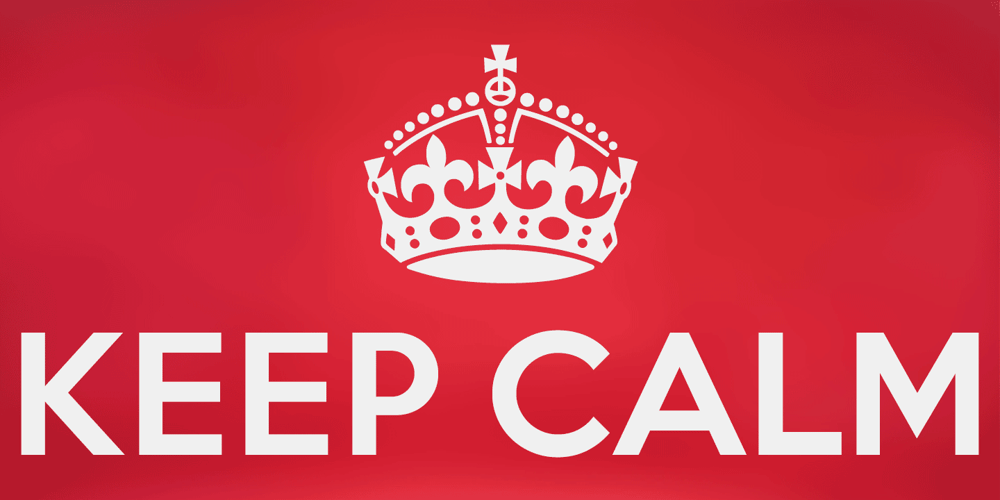
Keep Calm Font Family was designed by Keith Bates and published by K-Type. Keep Calm contains 8 styles and family package options. Keep Calm is a family of fonts developed from the now famous World War 2 poster that was designed in 1939 but never issued, then rediscovered in 2000. As well as the original Keep Calm font, the medium weight of the poster, new weights are now available – Keep Calm Book (regular weight), Heavy and Light – and each weight comes with a complimentary italic. Version 2.0 (2017) is a comprehensive update which consists of numerous refinements and improvements across all weights. The family now contains a full complement of Latin Extended-A characters, Welsh diacritics and Irish dotted consonants. The four italics have been optically corrected with revised, ‘true italic’ forms of a and f. The crown motif from the top of the Keep Calm poster is located at the plus minus ± and section § keystrokes (Alt 0177 and Alt 0167 on Windows). The lowercase g follows the Gill/Johnston eyeglass model, but also included is an alternative, single-story g at the Alt G keystroke (Alt 0169 on a Windows keyboard), the normal location of the copyright symbol which has been relocated elsewhere in the fonts. An alternative lowercase t, without the curved wedge cutaway, is provided at the Alt T (dagger) keystroke (Alt 0134 on Windows). When I first saw the Keep Calm and Carry On poster, I wrongly assumed the letters to be Gill Sans. Recent research at the National Archive by Dr. Bex Lewis of Manchester Metropolitan University has revealed that the original poster was hand drawn by the illustrator and painter, Ernest Wallcousins. The Gill Sans influence is apparent, in the R particularly, the M’s perfectly pointed vertex is redolent of Johnston’s Underground, and the most anomalous character, the C, resembles the ‘basic lettering’ of engineers that provided the vernacular sources for the Gotham typeface. Developing the Keep Calm typeface has been an exercise in extrapolation; an intriguing challenge to build a whole, high quality font family based on the twelve available capitals of the Keep Calm poster, and on similar lettering from the other two posters in the original series. This has required the creation of new lowercase letters that are believably 1939; that maintain the influence of Gill and Johnston while also hinting at the functional imperative of a wartime drawing office. Wallcousins’s lettering balanced intuitive human qualities and the pure pleasure of drawing elegant contemporary characters, against an underlying geometry of ruled lines, perfect circles, 45° terminals, and a requirement for no-nonsense clarity.